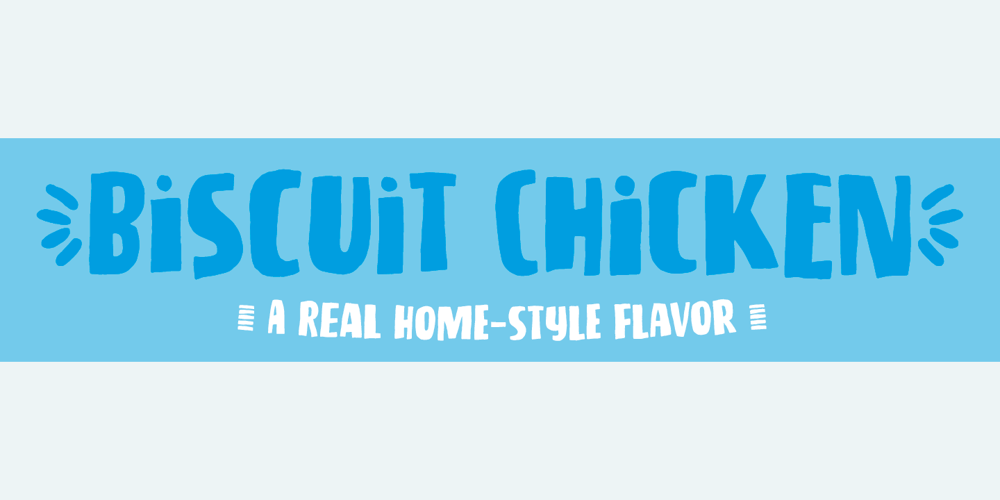
Biscuit Chicken Font Family was designed by Jakob Fischer and published by PizzaDude.dk. Biscuit Chicken contains 2 styles and family package options. Sweet, lovely and straight from the oven! 5 different versions of each letter and to make it even more exciting I have included a dingbat with useful objects such as boxes and arrows. Comes with extended language support!